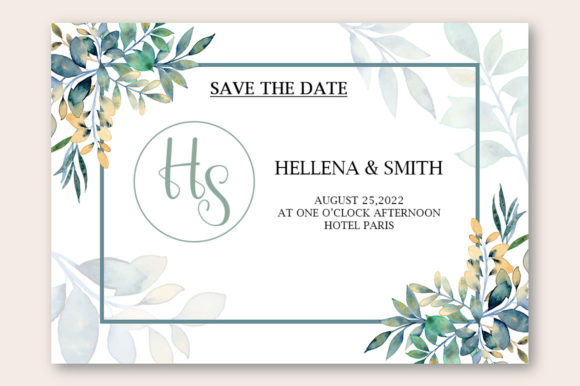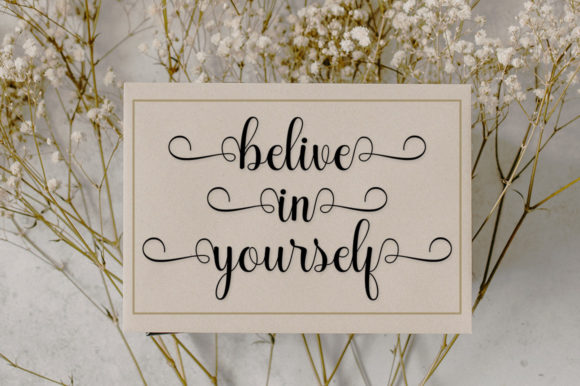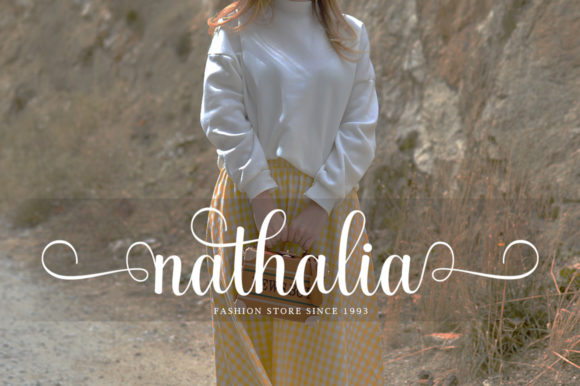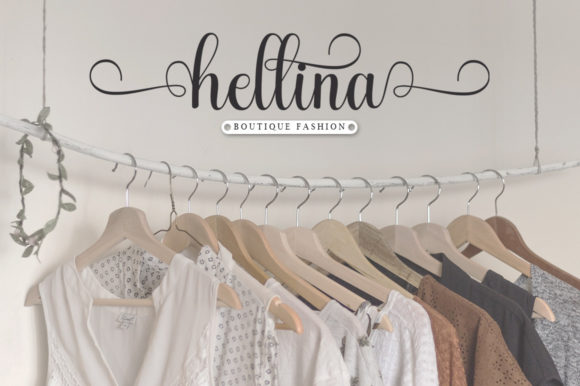
Sweet Heart Font
“Sweet Heart” is presented as a stylish and delicate script font that adds a touch of elegance to various design projects. The font is versatile and suitable for a range of applications, including logos, branding projects, labels, photography, watermarks, special events, and any other projects that require a beautiful script style. It is highlighted that this font is PUA encoded, allowing easy access to all glyphs and swashes for enhanced customization.
The characteristics of “Sweet Heart” that contribute to its suitability for different projects are emphasized. Its stylish and dainty script style is positioned as ideal for conveying a sense of beauty and sophistication. The font’s versatility is highlighted by its applicability to diverse design contexts, from branding to special events.
The inclusion of PUA encoding is emphasized as a feature that facilitates ease of access to the various glyphs and swashes, providing designers with the flexibility to customize and personalize their projects. This capability adds an extra layer of creativity, making “Sweet Heart” a versatile tool for creating unique and visually appealing designs.
In summary, “Sweet Heart” is presented as more than just a font; it’s a stylish and dainty script that caters to the aesthetic needs of projects ranging from logos to special events. The PUA encoding ensures accessibility to various design elements, making it a valuable asset for designers looking to infuse a beautiful script taste into their lovely projects.